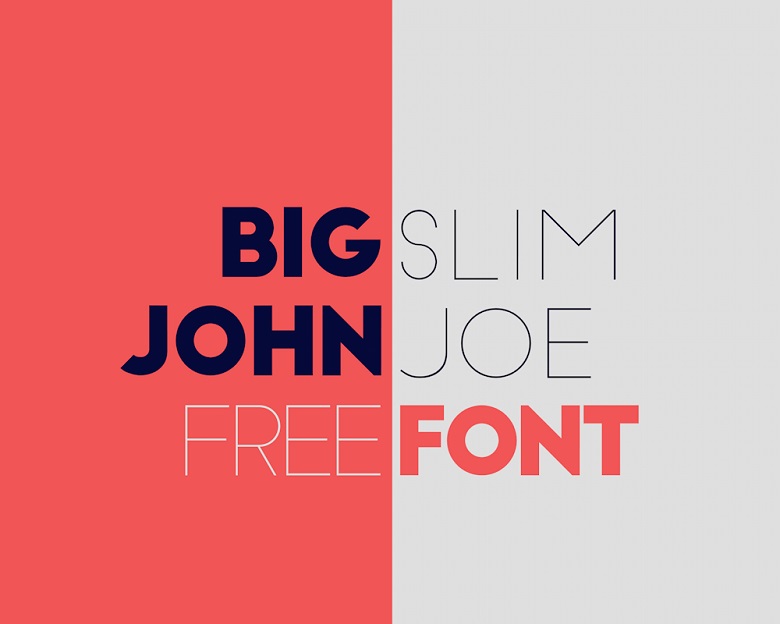
Big John / Slim Joe Font
Big John Slim Joe Font
Big John/Slim Joe is the second type of font that can be classified as an abstract modern simple design for ION and it comes in both ultra slim and also bold. This was developed and released to the public by this man It has both the light and the bold category of the font that is perfect for business and personal uses.
Big John / Slim Joe Sans Serif Font